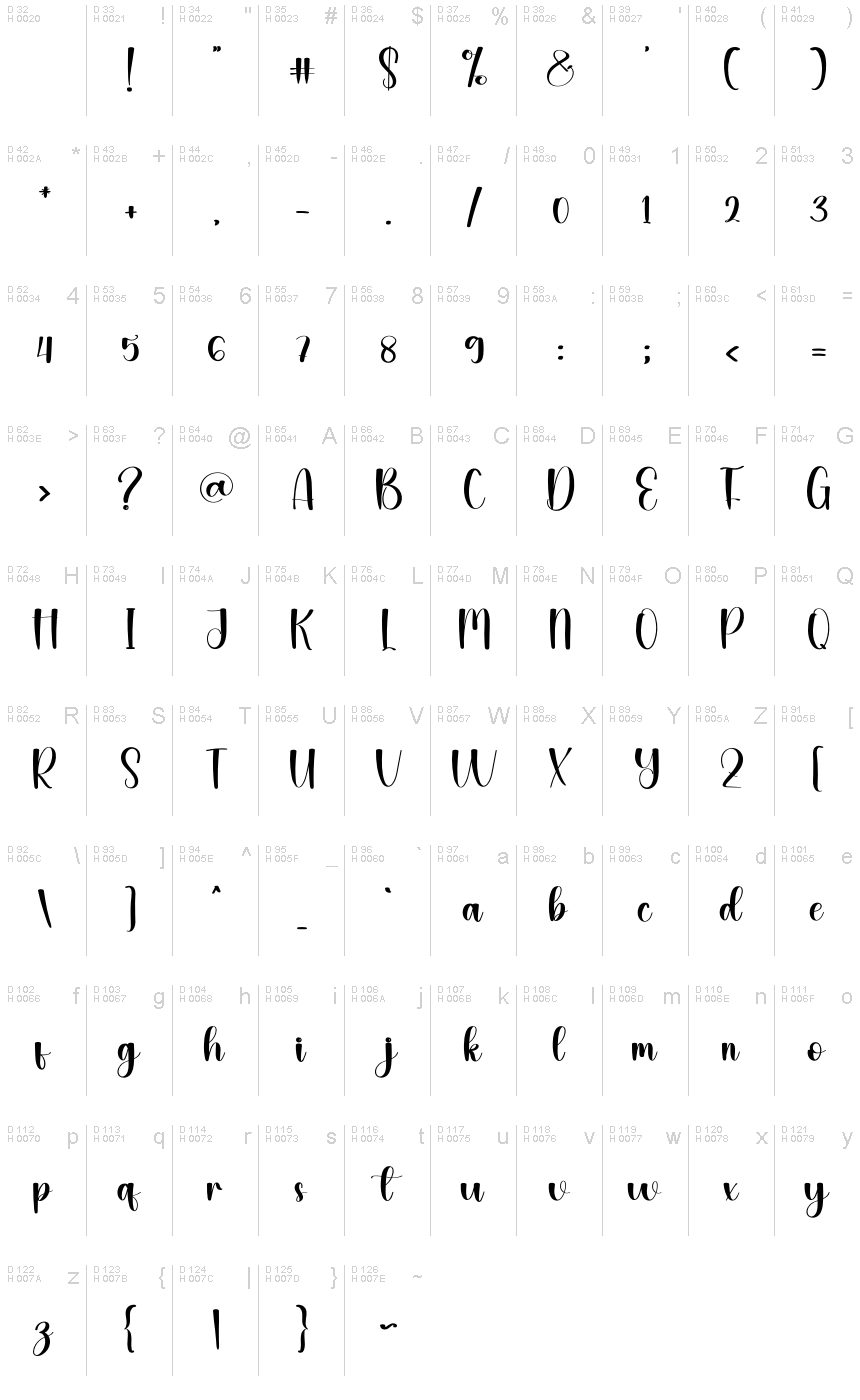
Smiles
Smiles is a captivating handwritten font that exudes warmth and personality. Designed by FreshtypeINK, this font showcases a delightful blend of fluid strokes and playful ligatures, creating a whimsical yet sophisticated aesthetic. The unique letterforms and subtle variations in line thickness add a charming, handcrafted feel, making Smiles an excellent choice for a wide range of design applications, from greeting cards and invitations to branding and packaging.
Its versatility and eye-catching appeal make it a compelling option for projects seeking to convey a friendly, approachable tone.